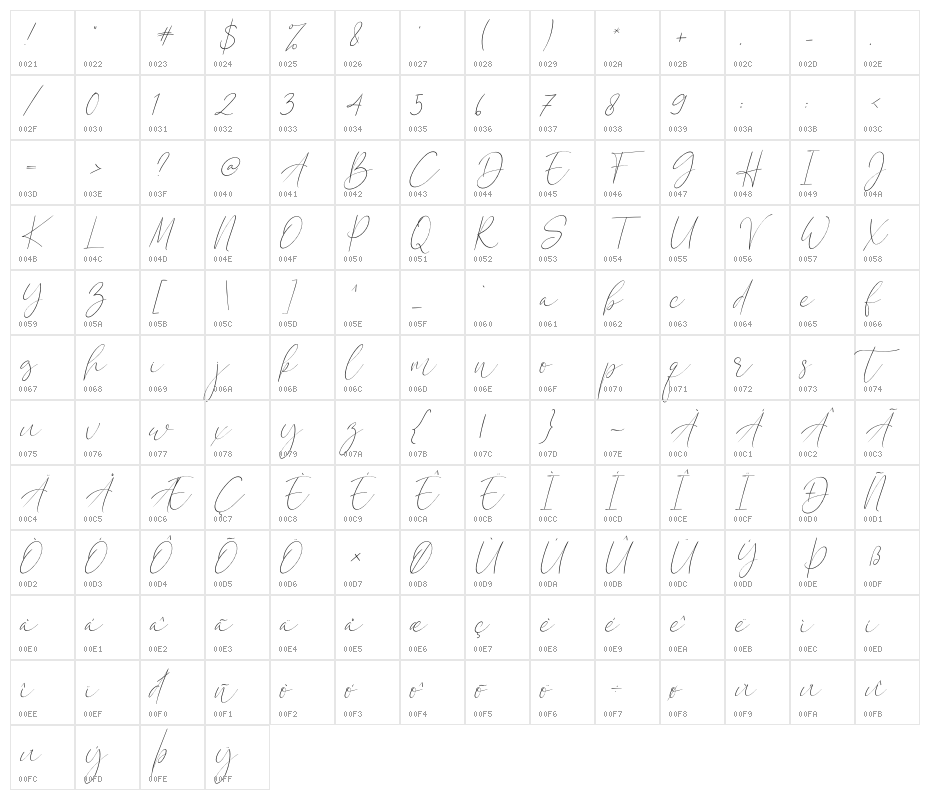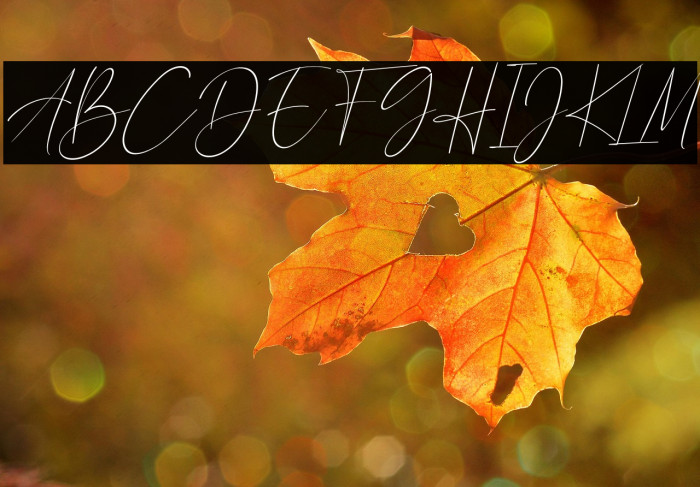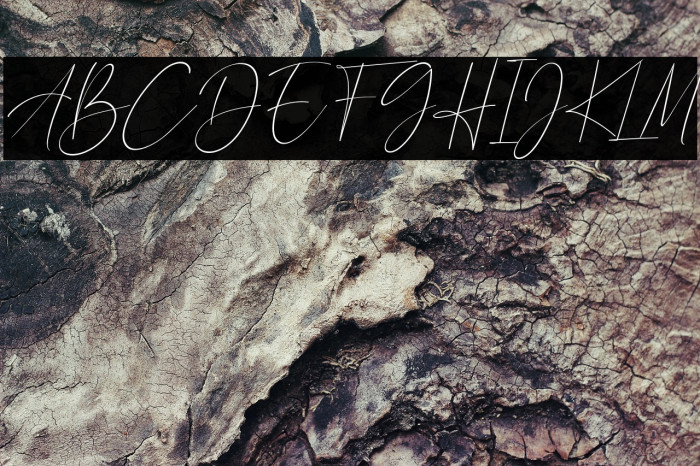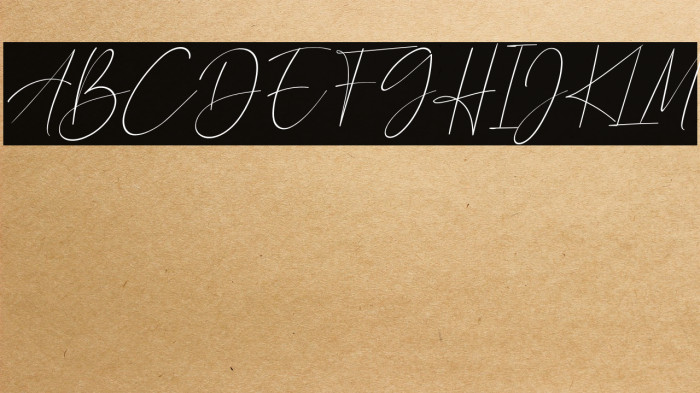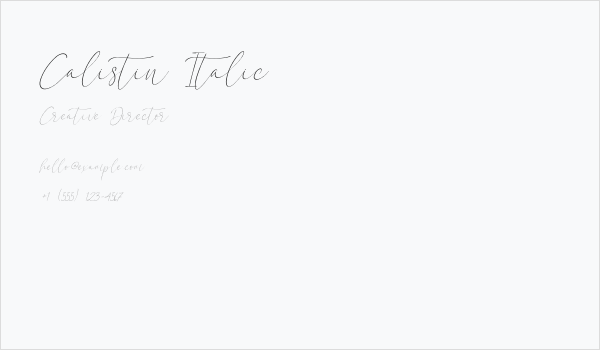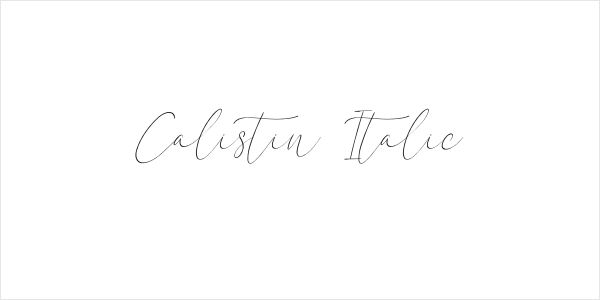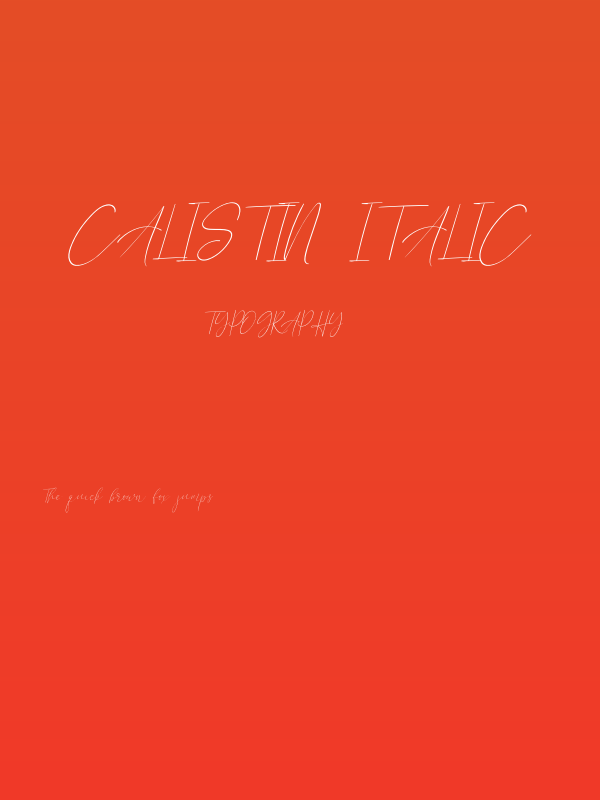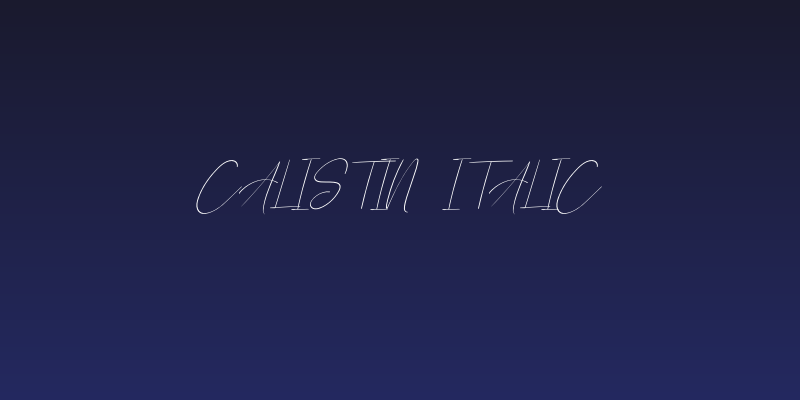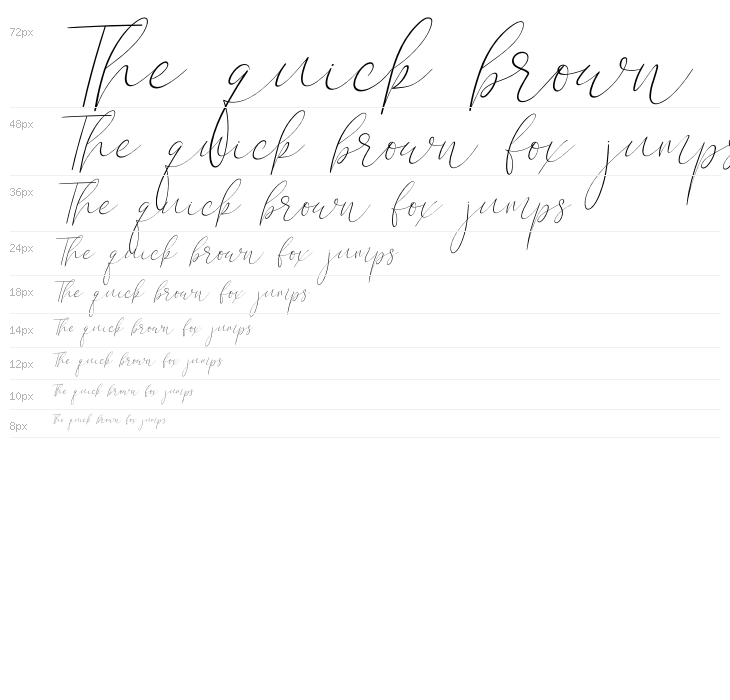
Calistin Italic Font
Calistin Italic Description
A flowing, elegant script font with a handwritten style, featuring smooth curves and a natural, cursive appearance.
| Overall Style | Elegant, Handwritten |
| Proposed Projects | Invitations, greeting cards, personal branding. |